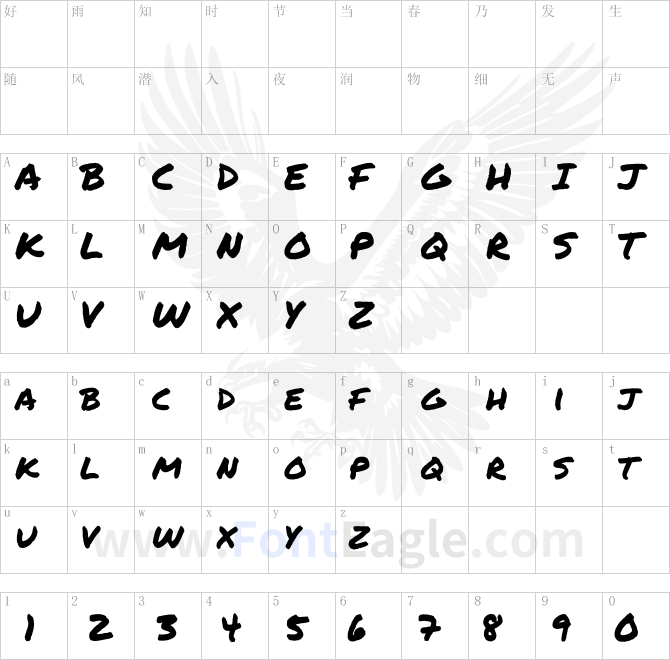
- Font name:Permanent Marker
- Font Subfamily ID:FontDiner,Inc: Permanent Marker: 2010
- Font Full Name:Permanent Marker
- Postscript:PermanentMarker